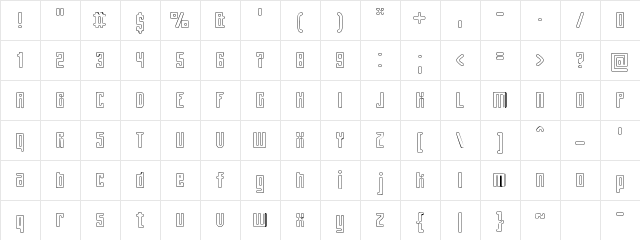
Spinach Outline Regular Font Preview
Spinach Outline Regular
Design Context for Spinach Outline Typeface
Spinach Outline is built around its visual character rather than neutral utility — its distinctive forms are designed to make an impression at display sizes.
Font Pairing: Pair with a clean neutral sans-serif for body copy to let Spinach Outline's character lead without overwhelming the composition.
Pro Tip: Treat Spinach Outline as the centrepiece of your typographic hierarchy. One strong heading set in a decorative face can carry an entire layout.